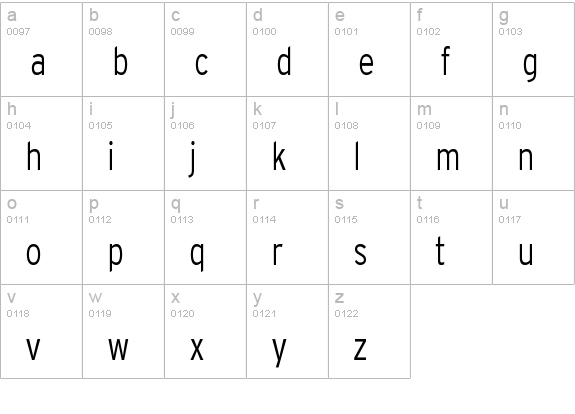
InterstatePlus Light Cond is a refined, elegant, condensed-width variant in the InterstatePlus typeface family \xE2\x80\x94 well suited to elegant body text, refined sub-headings, and luxury branding.
InterstatePlus Light Cond font is a sleek and modern typeface that exudes elegance and sophistication. Its condensed design allows for maximum readability while maintaining a stylish and contemporary look. This font is perfect for creating eye-catching headlines, signage, and brand identities. With its clean lines and balanced letterforms, InterstatePlus Light Cond font effortlessly blends functionality with aesthetic appeal. Its slender and refined characters lend a sense of professionalism and refinement to any design project. What sets this font apart is that it is freely available to download at FontsMarket.com. Whether you are a professional designer or a hobbyist, you can now access this remarkable typeface without any cost or restrictions. This makes it an excellent choice for those who are looking for high-quality fonts that won't break the bank. In addition to its visual appeal and accessibility, InterstatePlus Light Cond font also offers a wide range of language support, making it suitable for various international projects. Its versatility and adaptability ensure that it can be used in a multitude of design applications. Whether you need a font for a corporate website, a magazine layout, or a promotional poster, InterstatePlus Light Cond font is the perfect choice. Its timeless design and free availability make it a valuable asset for any designer's toolkit. Download it today from FontsMarket.com and elevate your designs with this exceptional typeface.